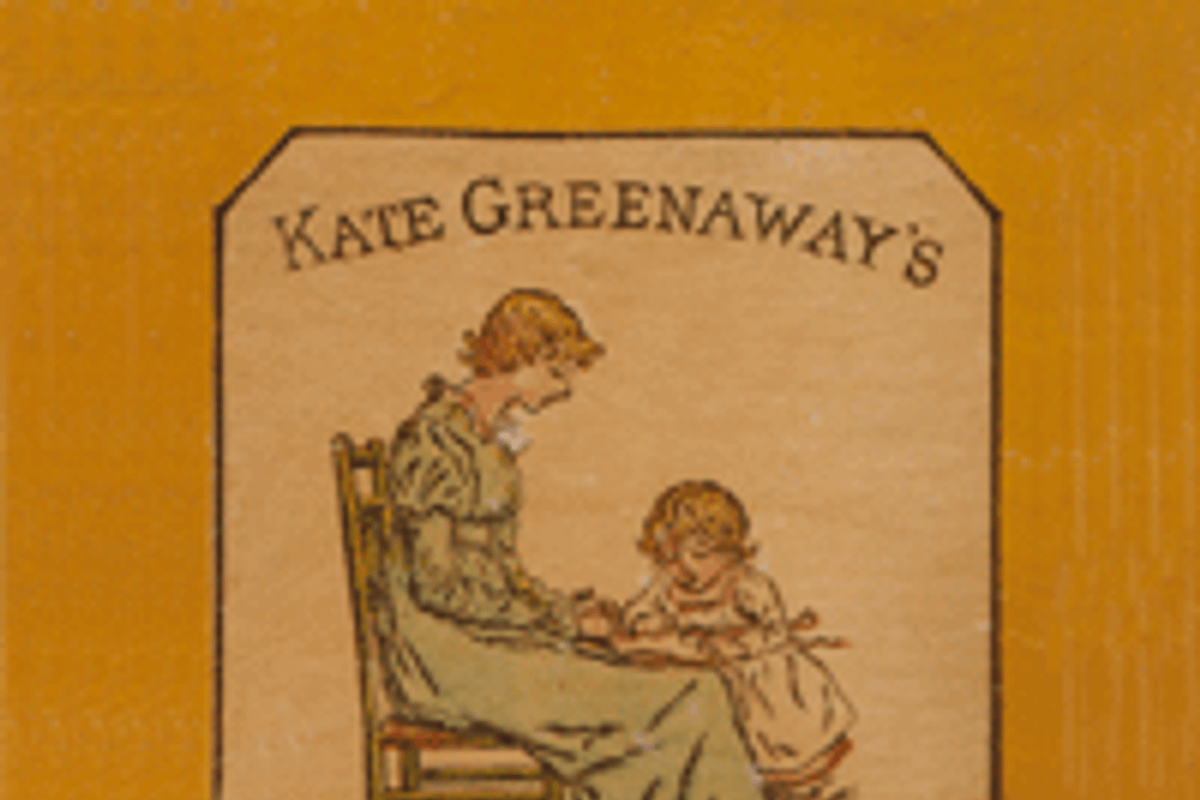
Kate Greenaways Alphabet
This font is a digital adaptation of the delicate illustrations created by renowned Victorian illustrator Kate Greenaway. The designer, Gert Wiescher, painstakingly redrew and simplified Greenaway's original artwork to create a usable typeface. The result is an elegant serif font with ornate details, perfect for adding a touch of vintage charm to greeting cards, titles, and other decorative projects.